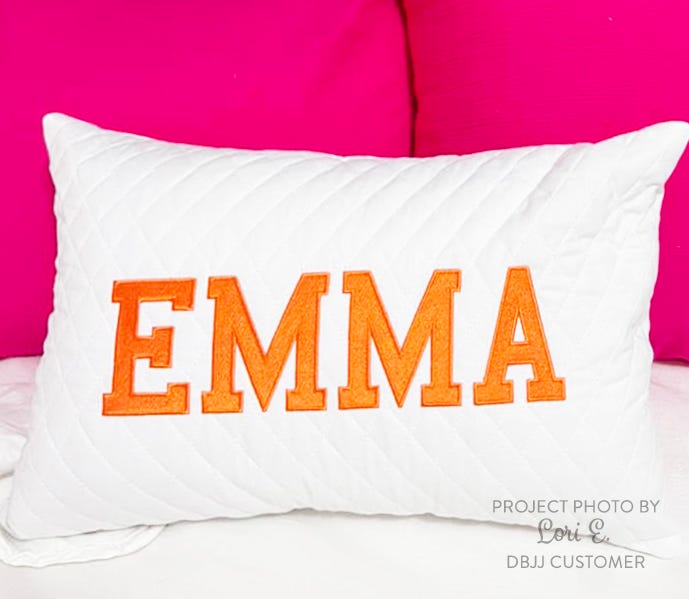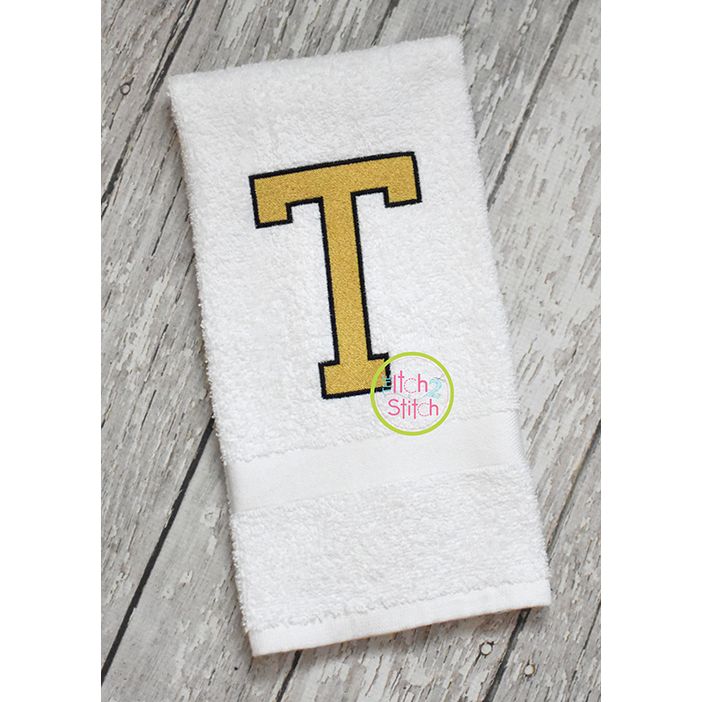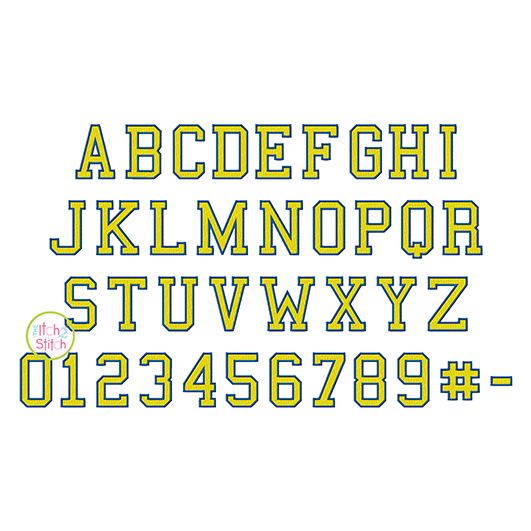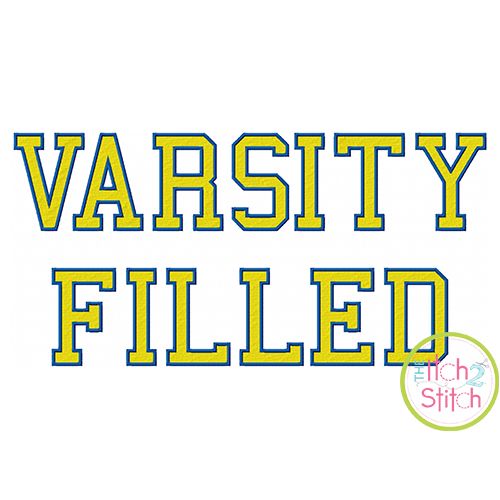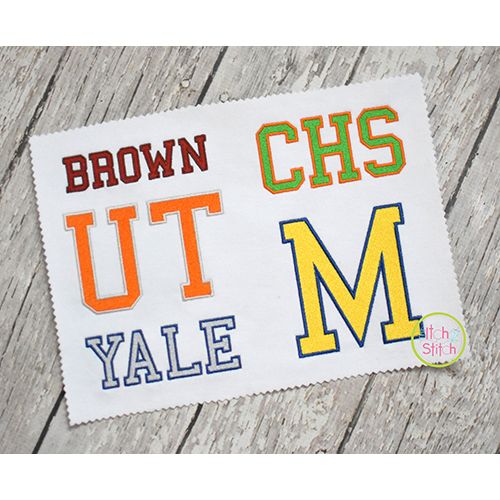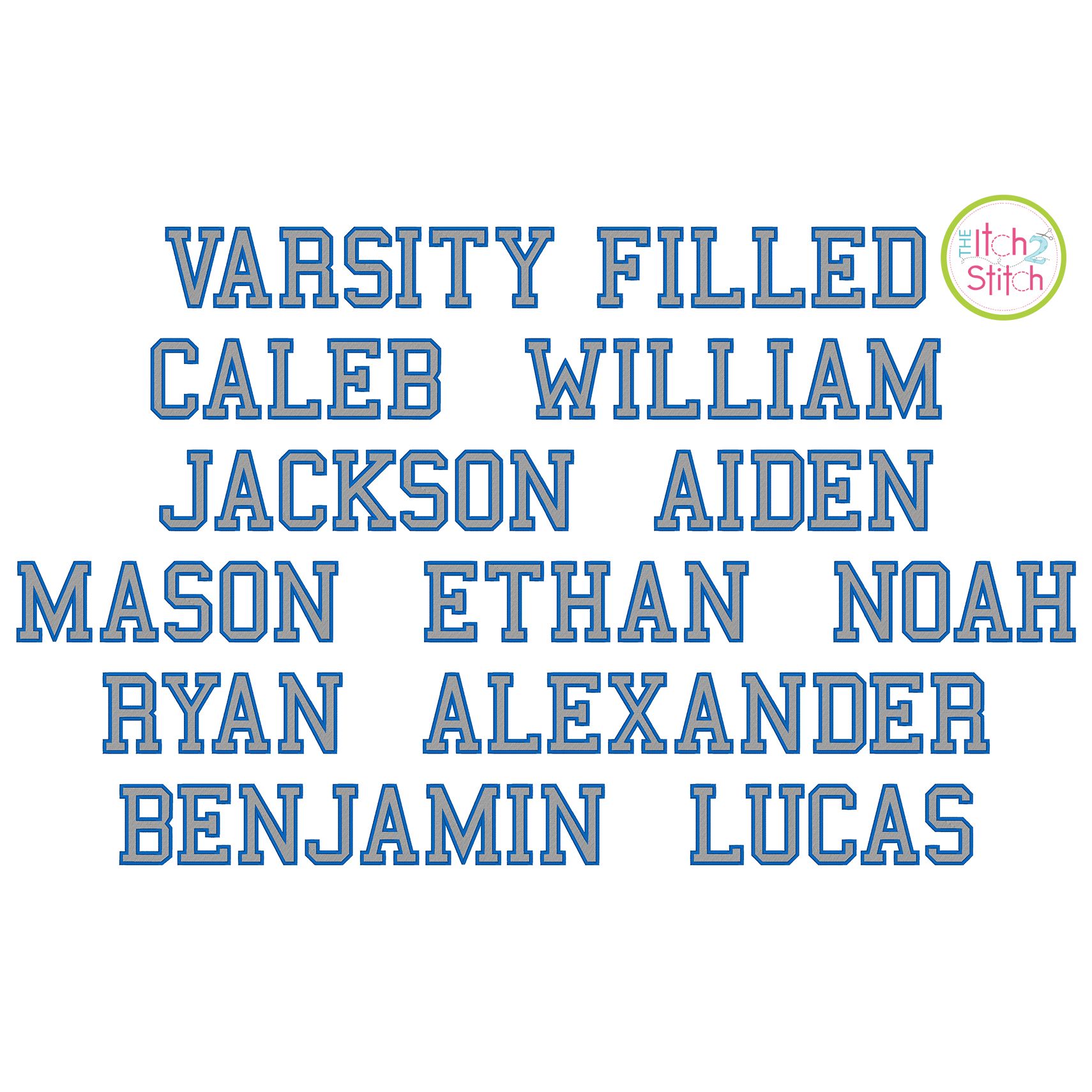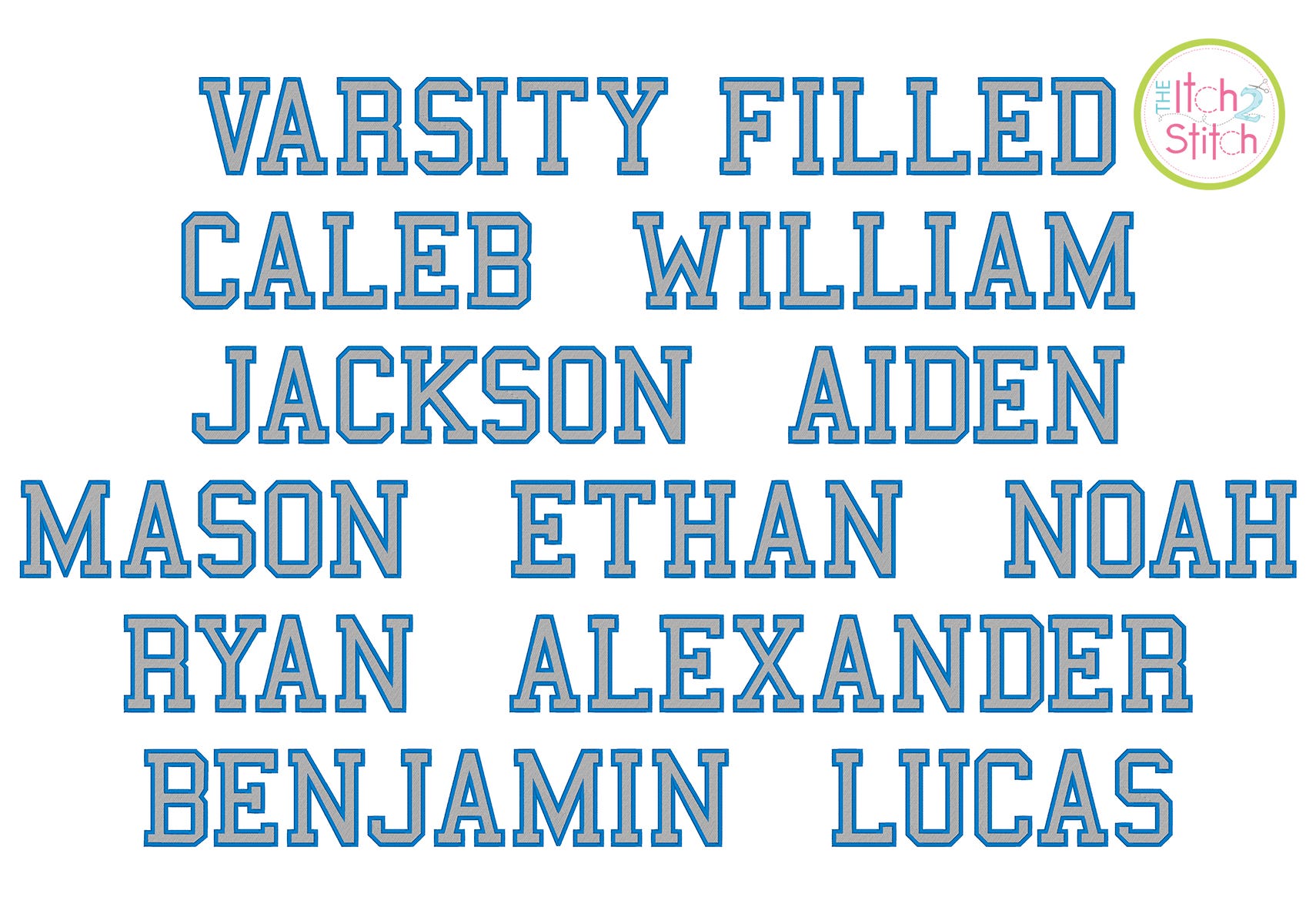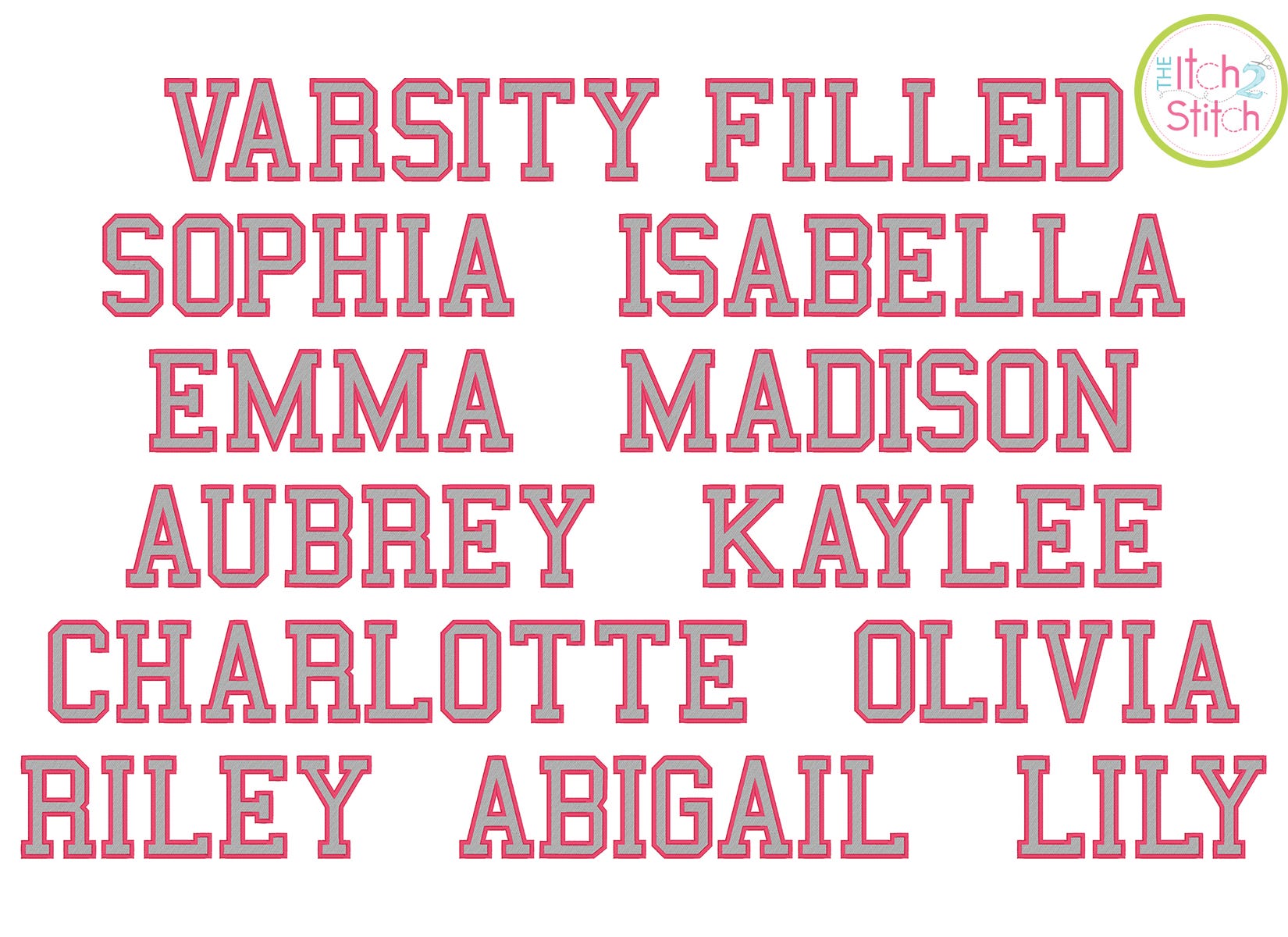
Varsity Filled Satin Stitch Embroidery Font
This is a two color font with fill stitch letters and a satin stitch outline. We do not recommend resizing this font in software.